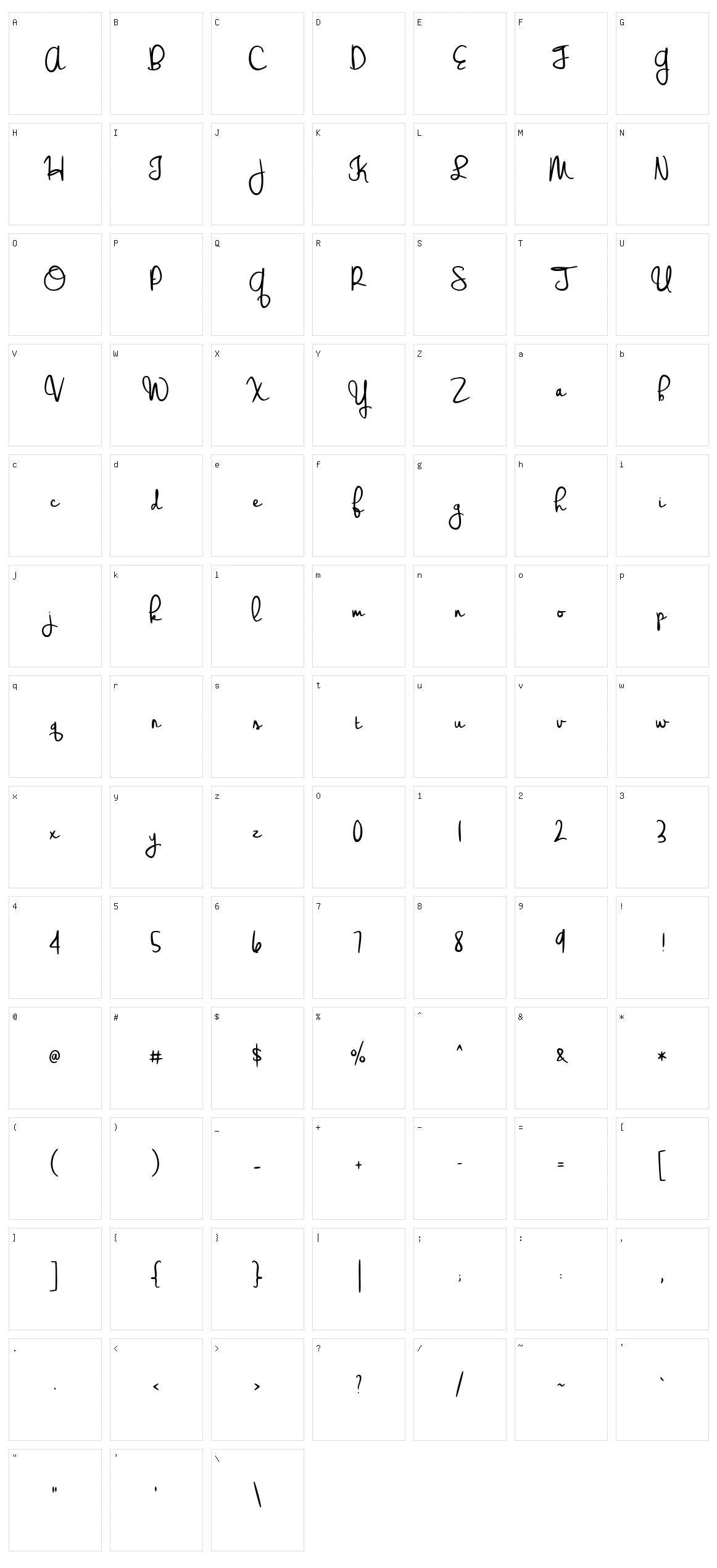
The free font Wedding Chardonnay is carefully designed by Brittney Murphy Design, showcasing a thoughtful balance of creativity and usability and falls under the Script font style. When you download the ZIP file, it contains only 48.84 KB of font files, making it lightweight and quick to download. Please review the license details below to understand permitted usage and distribution rights. If license information is not available, we recommend using this font for personal projects only or contacting the author directly for commercial usage permissions.